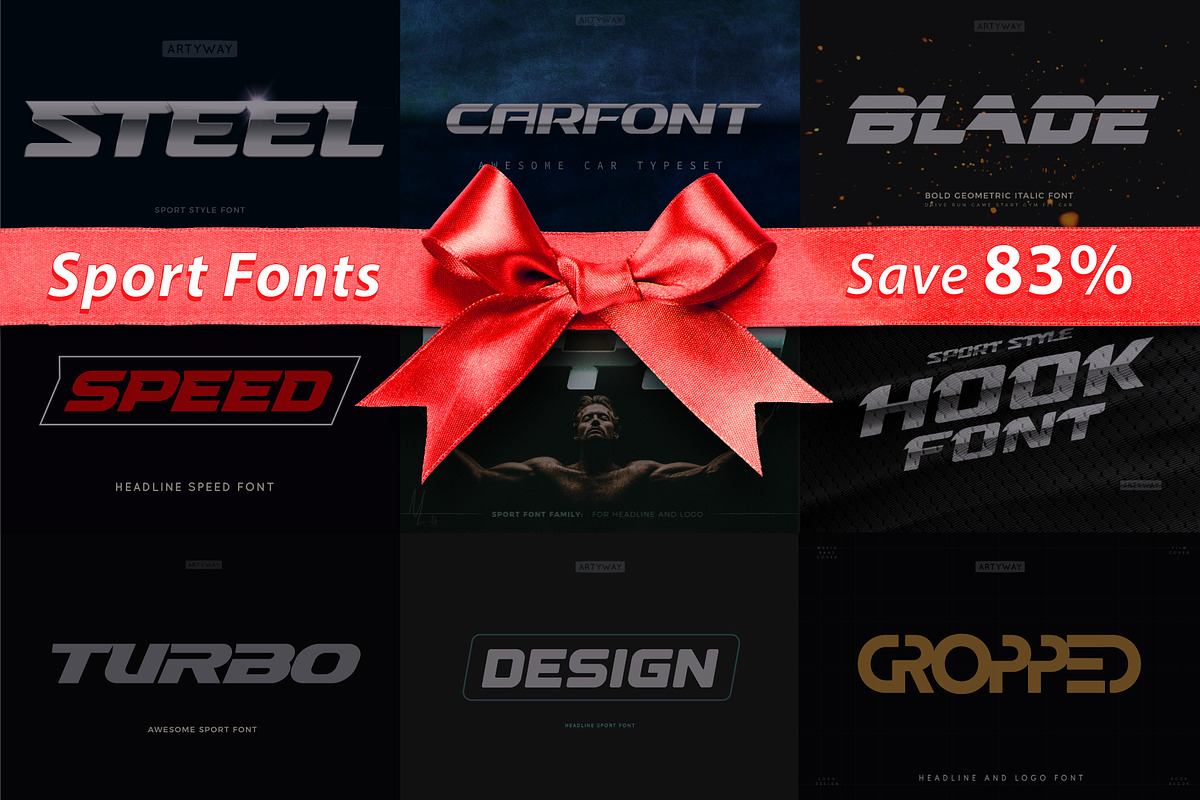
Sport Fonts Bundle Free Download is a powerful collection of typefaces designed specifically for sports branding, team logos, athletic merchandise, and dynamic event promotions. Featuring a variety of styles from bold and impactful to sleek and modern, this bundle is perfect for anything from sports team logos to merchandise, posters, and athletic campaigns.
Sport Fonts Bundle Free Download includes a variety of fonts that capture the energy, movement, and strength inherent in sports design. Whether you're working on a logo for a sports team, creating promotional material for an event, or designing dynamic graphics for apparel, this bundle offers the perfect typography for your athletic projects.